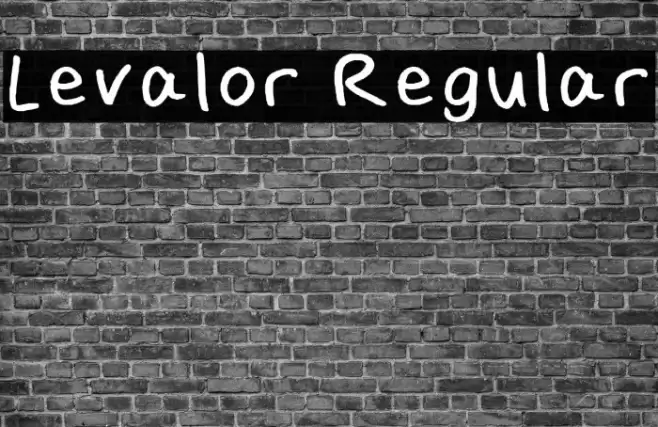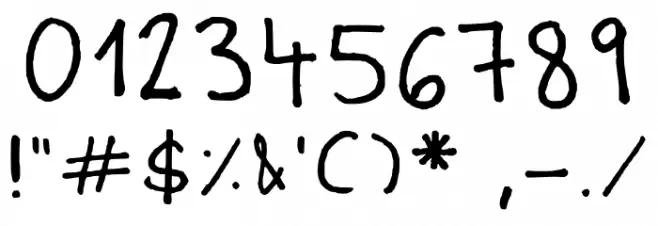
Levalor Regular Font
Levalor Regular Description
This font features a playful and casual handwritten style, characterized by its irregular strokes and organic flow. The letters have a slightly uneven baseline, giving it a natural, informal appearance. The uppercase and lowercase letters maintain a consistent style, with rounded edges and a friendly demeanor. The numerals and special characters follow the same design principles, ensuring a cohesive look across all glyphs. This font is perfect for projects that require a personal touch, such as greeting cards, invitations, or informal branding. Its unique charm lies in its ability to convey warmth and approachability, making it suitable for creative and artistic endeavors.
A playful, handwritten font with a casual and friendly style from Uncategorized fonts.
- Proposed Projects: Greeting cards, invitations, informal branding, creative projects.
- Overall Style: Casual, Playful
- Use Case: Creative projects, Informal branding